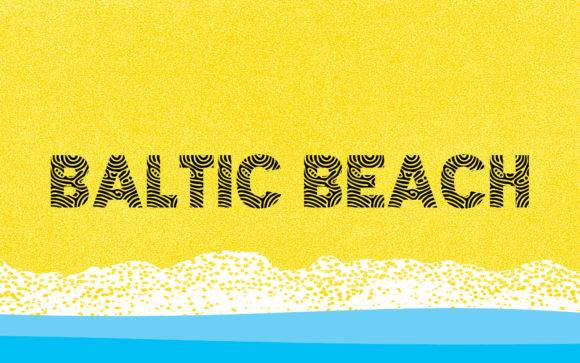
Baltic Beach Font for Headlines, Posters and Branding Projects
Baltic Beach Font is a stylish display typeface designed for use in headline compositions, branding systems, and creative poster layouts. It blends casual coastal energy with strong typographic presence, making it a perfect match for summer-themed campaigns, packaging, and lifestyle marketing. The Baltic Wave Font features elegant letterforms that evoke the breezy vibes of seaside adventures, capturing attention in both print and digital formats. Ideal for event promotions and pop-up shops, its versatility ensures it can be adapted for various creative contexts. Designed to resonate with audiences looking for a relaxed yet polished aesthetic, this typeface is a must-have for any designer's toolkit.
Purpose-built as a font entity, Baltic Beach performs consistently across digital and print formats—ideal for designers looking to inject personality and movement into their visual storytelling. Its versatile design captures attention, making it suitable for a variety of applications from logos to editorial layouts. For those seeking a distinctive touch, the barbatrick font for branding exemplifies creativity and style, ensuring that every project stands out. This adaptability positions Baltic Beach as a go-to choice for modern designers who aim for impactful visual communication. In addition to its eye-catching design, Baltic Beach harmonizes beautifully with various complementary fonts, allowing designers to create cohesive branding and marketing materials. For those focused on playful and engaging designs, the baltic bubbles font for crafting offers a delightful option that enhances any creative project. This seamless integration of styles empowers designers to experiment freely while maintaining a strong visual identity.
- Brand designers developing seasonal identities
- Marketers crafting attention-grabbing posters
- Print producers working on signage or ads
- Editorial creatives designing magazine layouts
- Lifestyle businesses seeking modern type solutions
- Event posters and promo banners
- Coastal or summer brand logos
- Retail packaging and signage
- Editorial covers and headline blocks
- Digital ads and branded web graphics
- Modern design with a breezy beach-inspired edge
- Perfect for bold display and brand storytelling
Q: What style is the Baltic Beach Font?
A: Baltic Beach is a display font with a modern coastal aesthetic, ideal for large text and visual branding.
Q: Can I use this font for printed posters and signage?
A: Yes. It's designed for strong legibility and visual impact in both print and screen formats.
| Feature | Baltic Beach Font | Generic Sans Serif | Generic Script Font |
| Tone | Relaxed, bold, coastal | Neutral, clean, minimal | Expressive, romantic, flowing |
| Use Focus | Headlines, posters, brand visuals | Body text and modern layouts | Decorative applications |
| Ideal Projects | Seasonal campaigns, signage | Web content, apps, reports | Invites, quotes, cards |